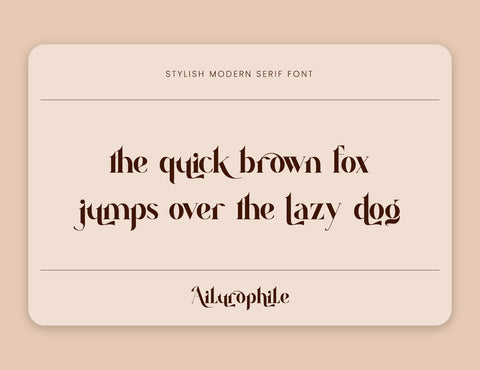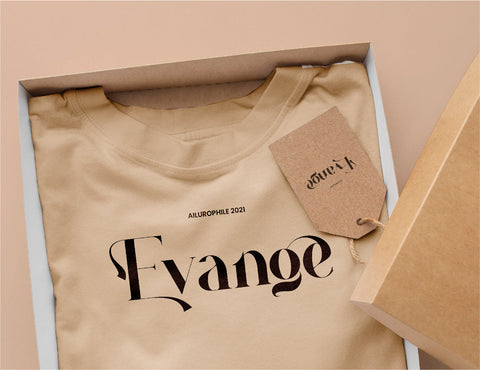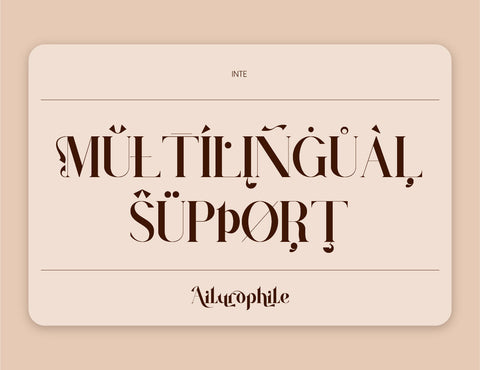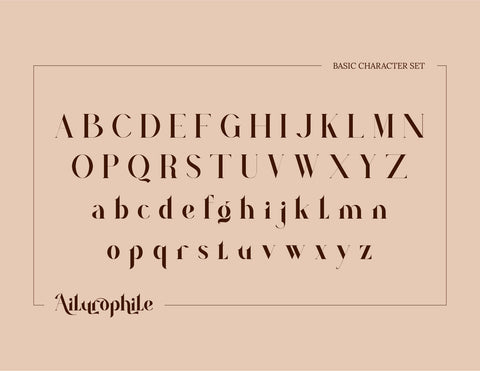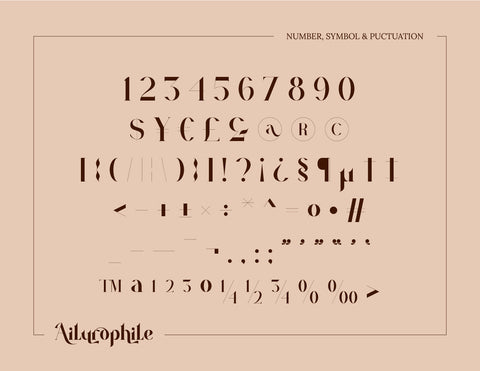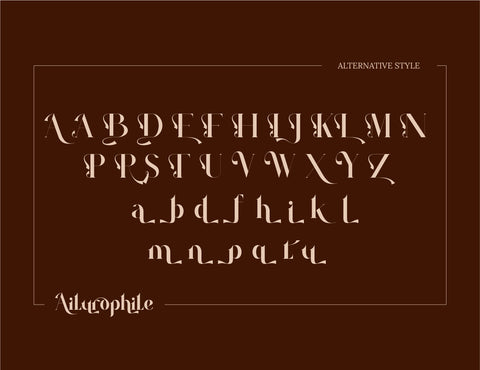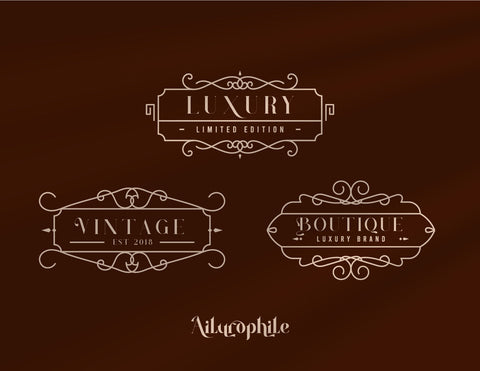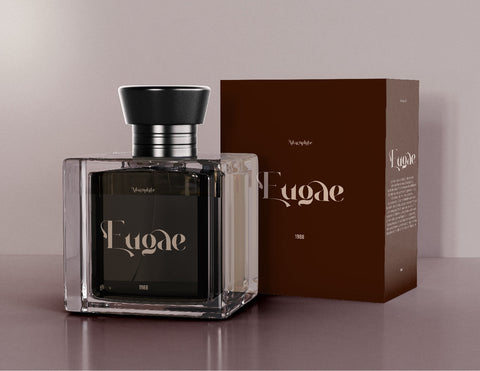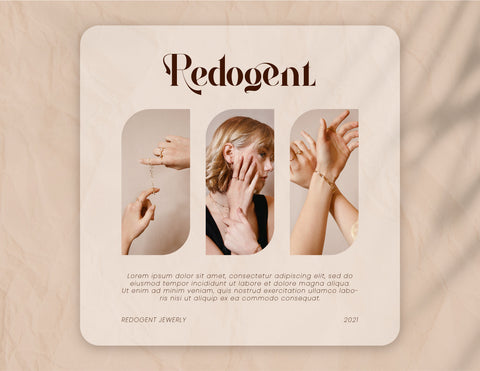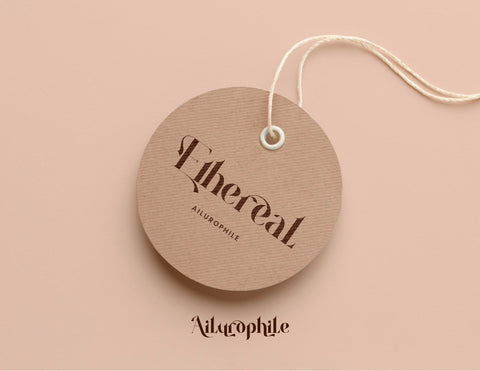
Ailurophile Font Serif
Ailurophile, elegant font with bold style. with thin curves that make this font look very beautiful and creative. Very suitable for branding, mockups, websites, social media posts, posters and others. has a unique ligature and is different from other fonts. consists of 26 characters of letters, numbers, symbols, punctuations and don't forget to support international languages. "Ailurophile", a suitable name to represent this beautiful font.
- OpenType Features (Stylistic Set)